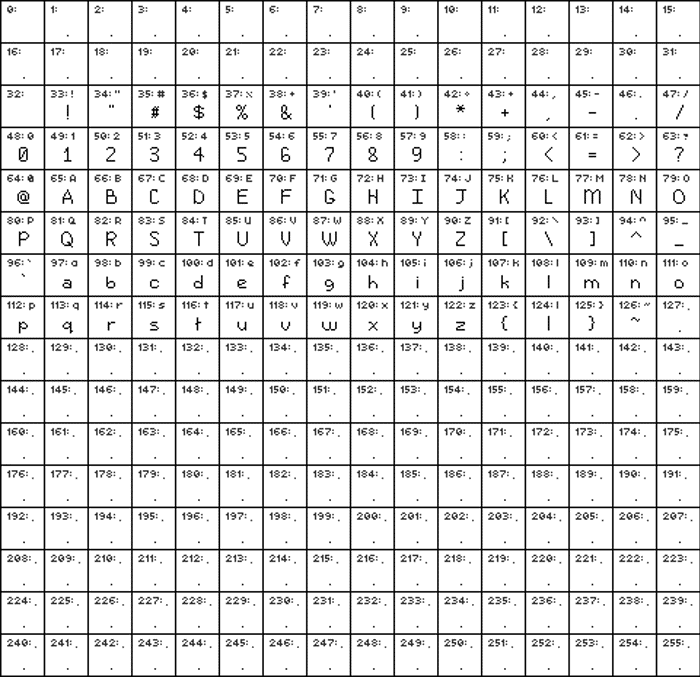
Sprite Comic Font
A bitmap-font created to replicate the look of "hand-lettering" which is popular in webcomics. Designed for optimal readability as smaller sizes, unlike traditional fonts which can use quality when rendered at small points. Sized specifically for pixel-art and sprite comics. If you need an even small font for your project, check out my emoticomic font.